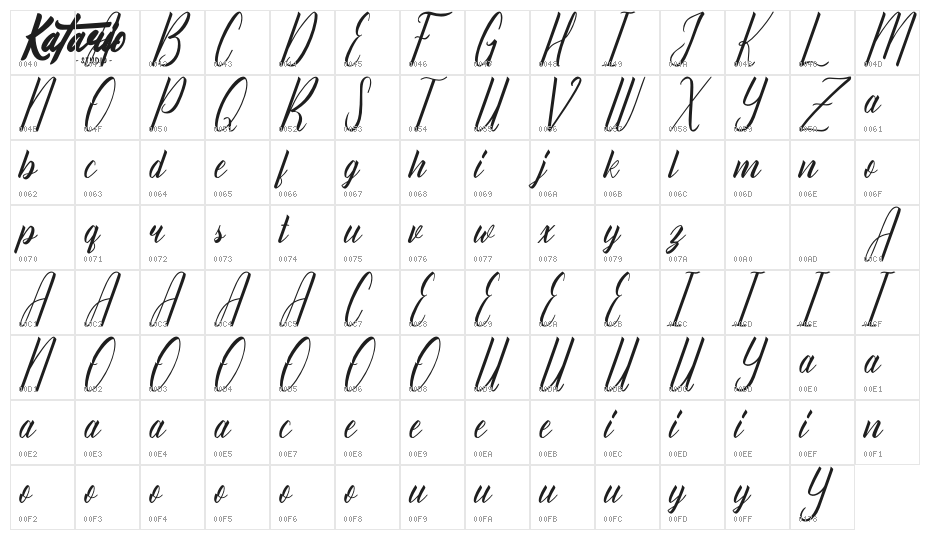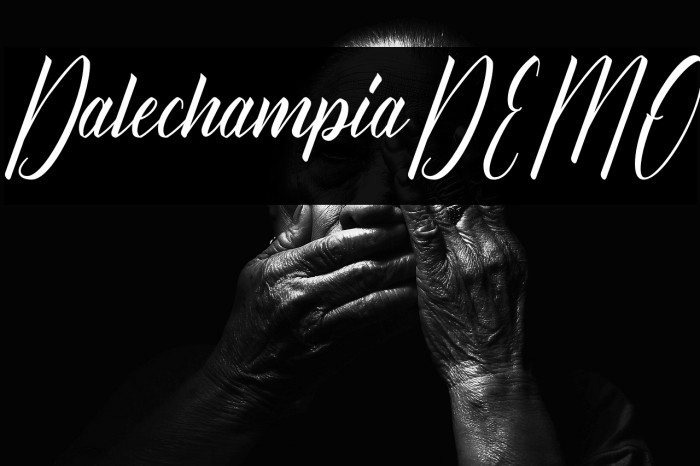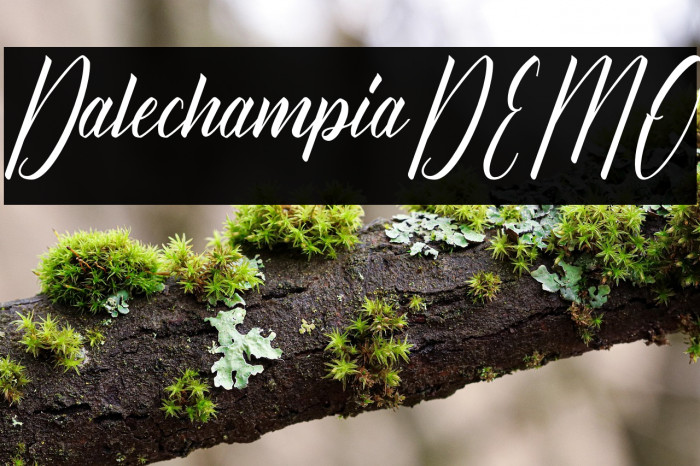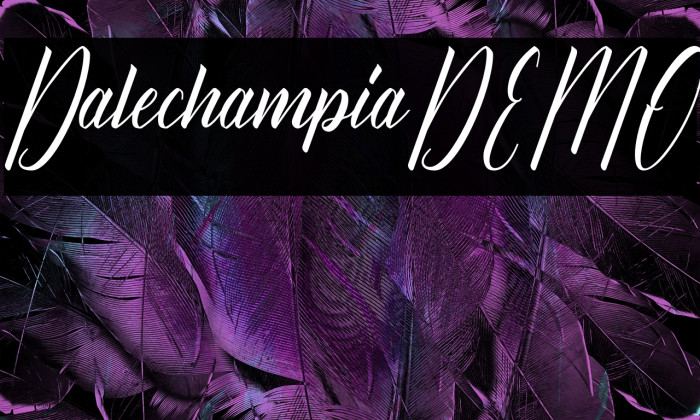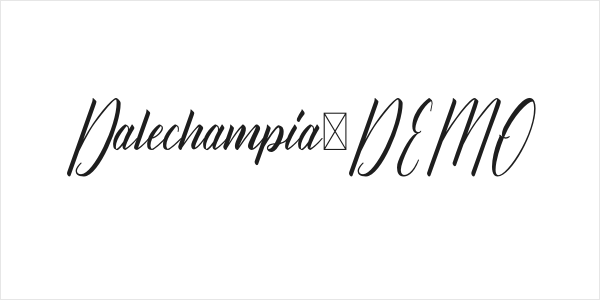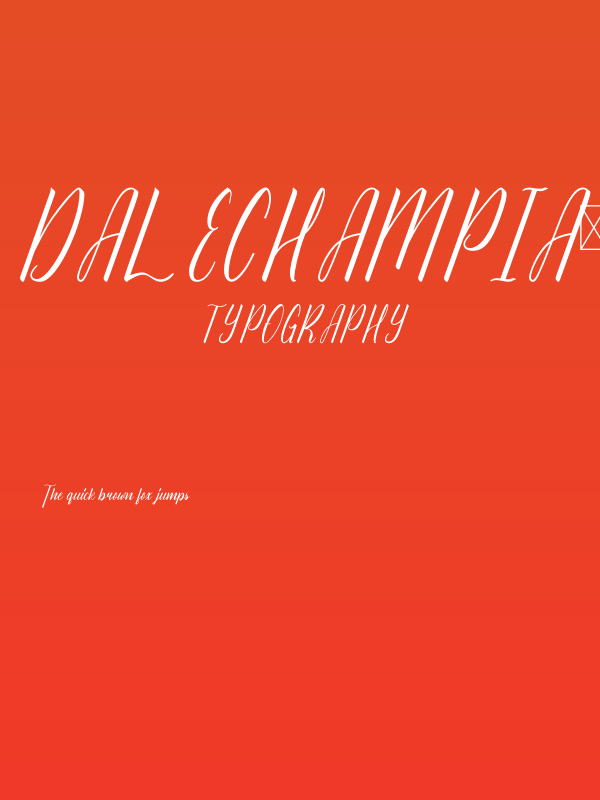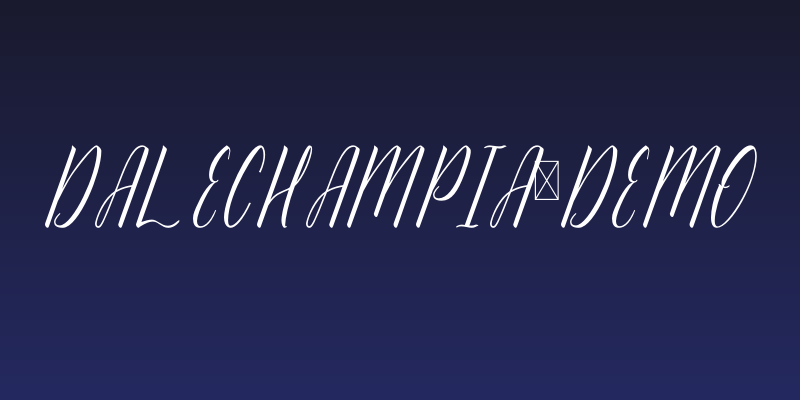
Dalechampia-DEMO Font
Dalechampia-DEMO Description
This font features an elegant and flowing script style, characterized by its smooth, cursive strokes and a slight slant to the right. The uppercase letters are tall and slender, with graceful loops and swashes that add a touch of sophistication. The lowercase letters are more compact, maintaining the fluidity and connectedness typical of script fonts. The overall appearance is both stylish and legible, making it suitable for formal and decorative applications. The font lacks numerical and special character representations, focusing solely on alphabetic characters.
| Use Case | Headlines, Invitations, Decorative text |
| Proposed Projects | Ideal for wedding invitations, elegant branding, and decorative headings. |